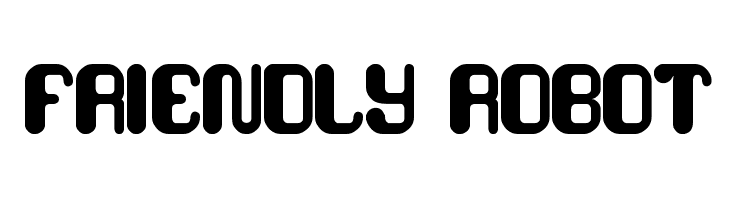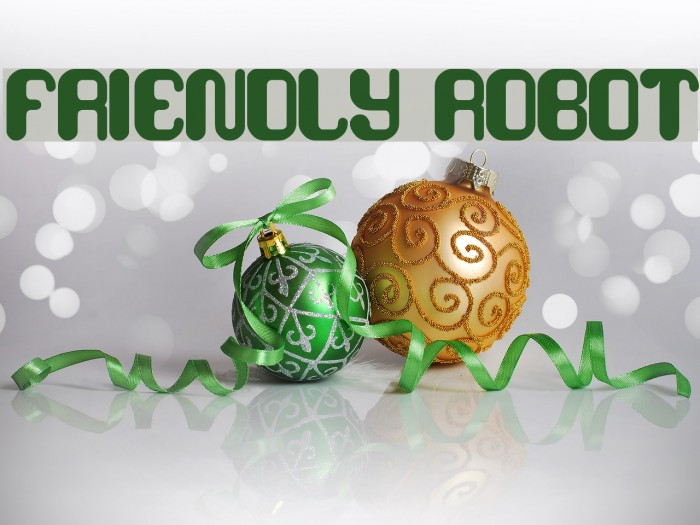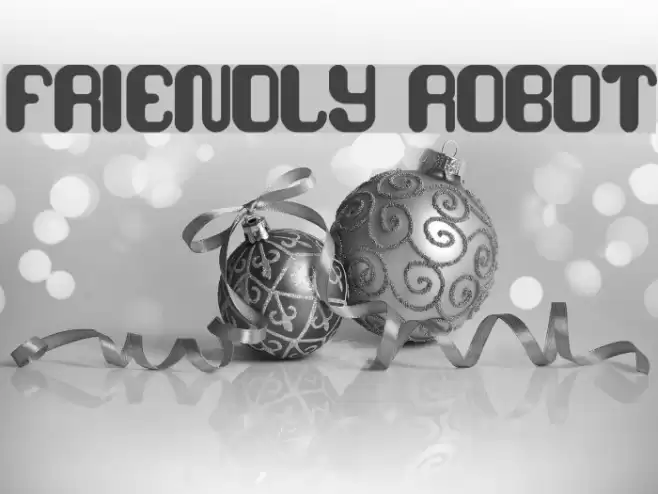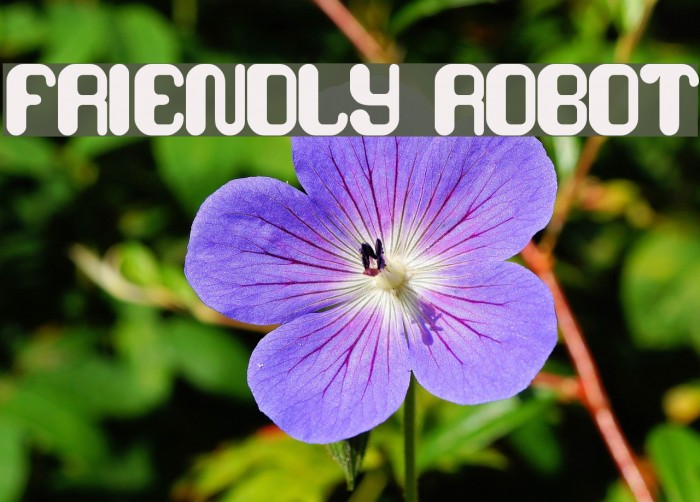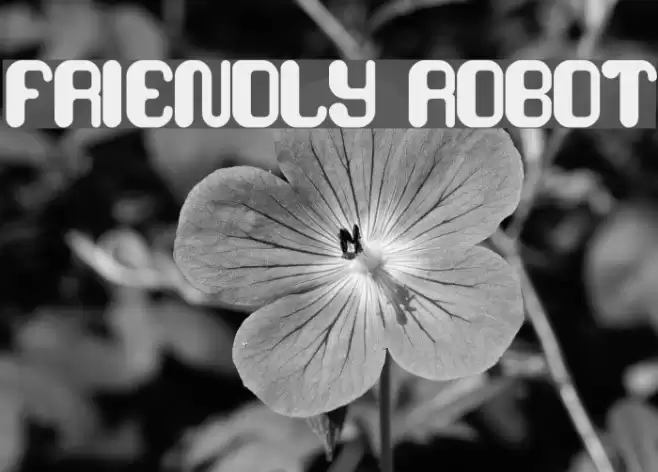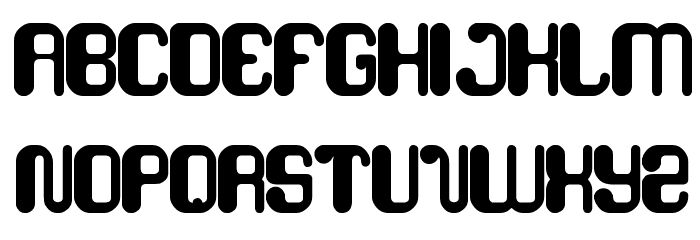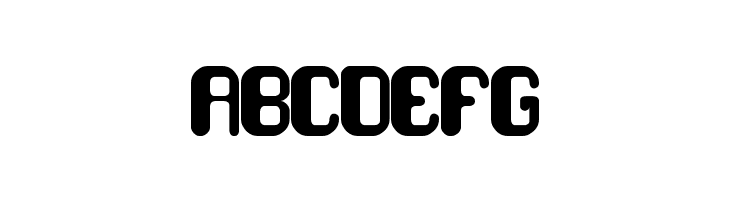
friendly robot Font
friendly robot Description
This font features a bold and rounded design with a futuristic and playful aesthetic. The characters are uniformly thick, with smooth curves and a consistent stroke width that gives a sense of cohesion and modernity. The rounded edges and enclosed forms create a friendly and approachable look, making it suitable for projects that require a contemporary and inviting feel. The uppercase letters maintain a uniform height, while the lowercase letters are slightly smaller, maintaining readability. The numbers and special characters are designed to match the overall style, ensuring consistency across different uses.
| Use Case | Logos, Headlines, Posters |
| Proposed Projects | Ideal for technology branding, children's products, modern advertising, and playful packaging designs. |